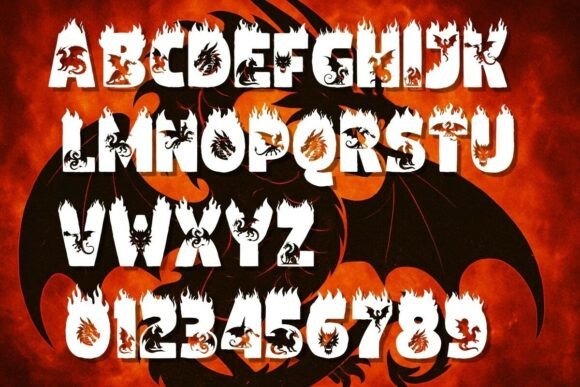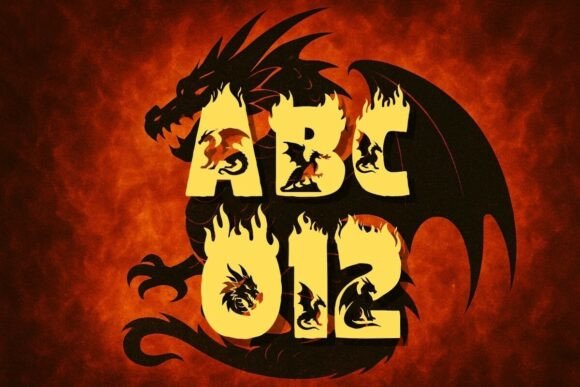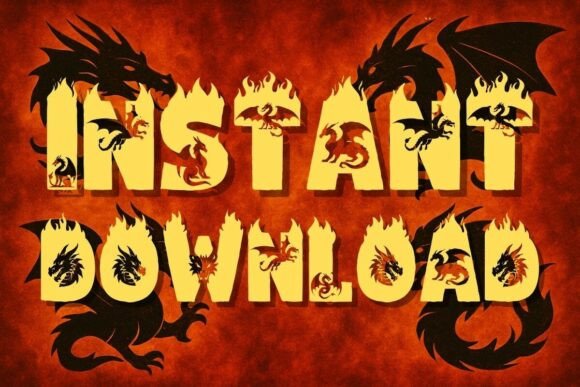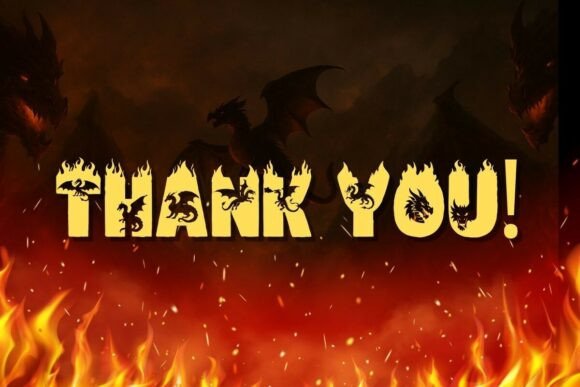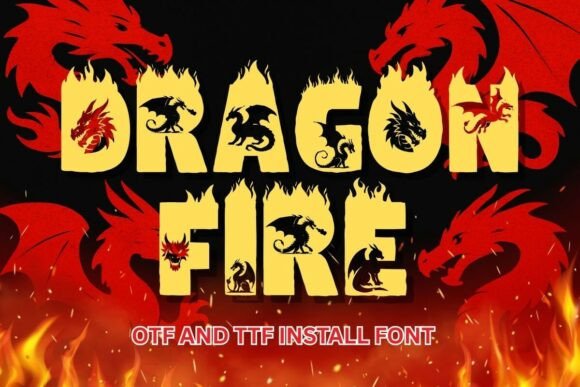
Unleash the Fiery Power of Btzdragonfire Font: Ignite Your Creativity
Are you ready to add a touch of mythical magic to your designs? Look no further than the Btzdragonfire Font, a striking fantasy decorative typeface that embodies the power and mystique of dragons. This extraordinary font is meticulously crafted to breathe life into every design, making it perfect for fantasy enthusiasts, gamers, and creatives alike.
A Font Like No Other: Intricate Dragon Silhouettes and Fiery Details
The Btzdragonfire Font boasts an impressive range of uppercase letters from A to Z and numbers from 0 to 9, each carefully designed with intricate dragon silhouettes and fiery details. The result is an intense, mythical aesthetic that is sure to captivate your audience. Whether you’re working on a fantasy game title, book cover, poster, or social media graphic, this font elevates your design to new heights.
Endless Creative Possibilities: Where to Use Btzdragonfire Font
The versatility of the Btzdragonfire Font knows no bounds. Here are just a few examples of how you can ignite your creativity with this incredible typeface:
- RPG Game Titles: Create bold, eye-catching titles for your fantasy game that transport players to a world of magic and adventure.
- Book Covers: Add a touch of mythical allure to your book cover designs, perfect for fantasy, sci-fi, and adventure genres.
- Posters and Flyers: Make a statement with bold, fiery graphics that grab attention and leave a lasting impression.
- YouTube and Twitch Graphics: Elevate your social media presence with custom graphics that showcase your brand’s personality and style.
- Print-on-Demand Projects: Create stunning t-shirts, stickers, and other merchandise that will leave your audience in awe.
Crafting Logos, Invitations, and Bold Fantasy Statements
The Btzdragonfire Font is more than just a typeface – it’s a design statement. Use it to craft:
- Logos: Create a bold, memorable logo that embodies the spirit of your brand or project.
- Invitations: Design custom invitations that set the tone for a fantastical event or celebration.
- Bold Fantasy Statements: Make a declaration with a font that speaks to the imagination and inspires creativity.
Conclusion: Unleash Your Creativity with Btzdragonfire Font
In conclusion, the Btzdragonfire Font is a game-changer for designers, crafters, and fantasy enthusiasts alike. With its intricate dragon silhouettes, fiery details, and versatile formats, this font is sure to ignite your creativity and take your designs to new heights. So why wait? Download the Btzdragonfire Font today and unleash the fiery power of dragons in your work!
- Uppercase letters from A to Z and numbers from 0 to 9
- Intricate dragon silhouettes and fiery details
- Perfect for fantasy enthusiasts, gamers, and creatives
- Endless creative possibilities for various design projects